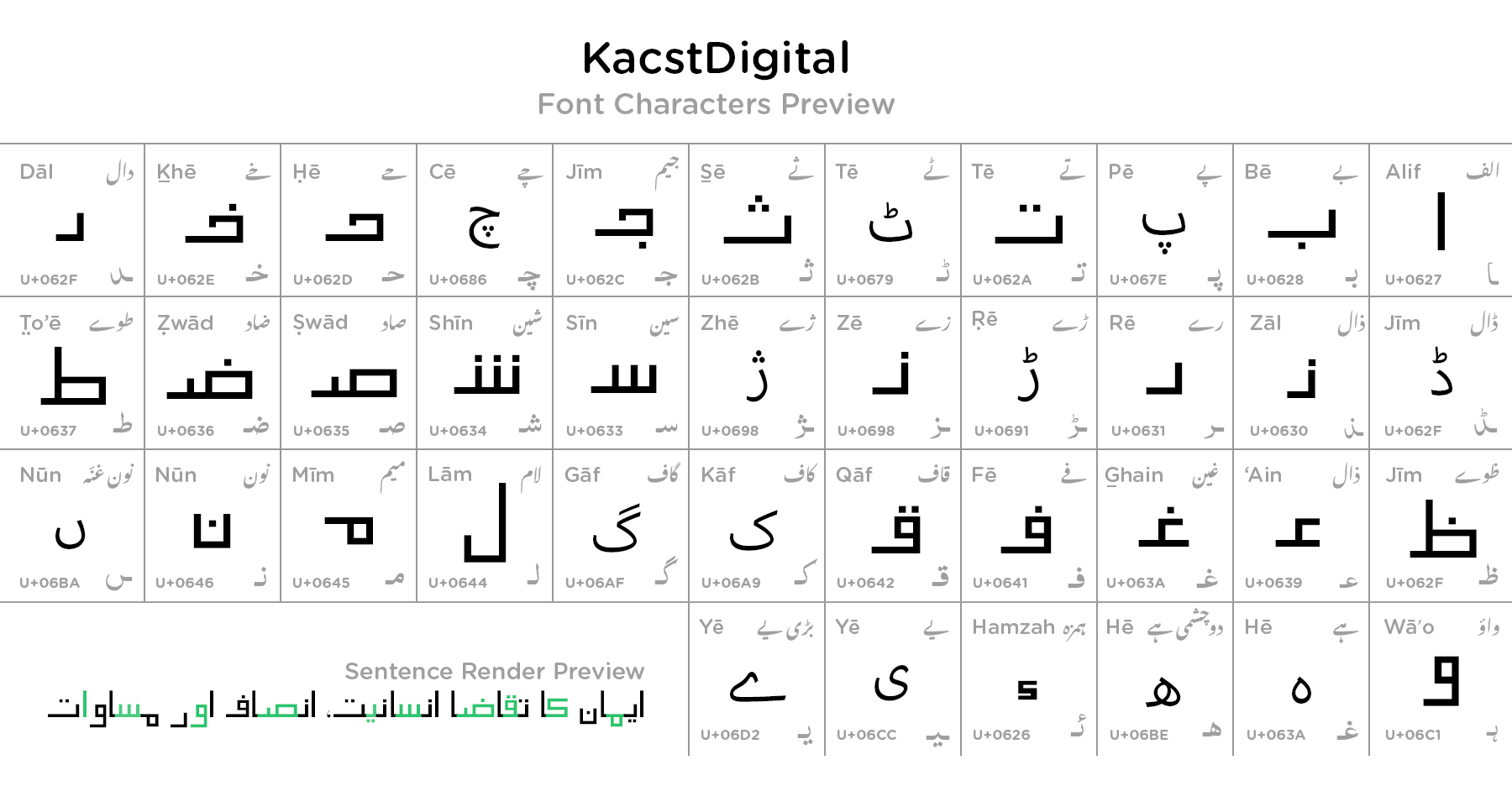
KacstDigital is a modern Arabic font developed by KACST (King Abdulaziz City for Science and Technology) and URW Design and Development and released under the GPL license. Its design draws inspiration from the Naskh and modern Kufic scripts, focusing on digital applications. With thin, wide, monospaced letters and square shapes, it embodies a tech font aesthetic, ideal for contemporary digital projects. Featuring constant thickness and sharp edges, KacstDigital delivers bold and impactful strokes, ensuring high legibility on screens, even at small sizes. The font offers a clean and clear look, with simple and spacious letters that enhance readability. Its geometric design lends a modern and minimalist feel to any text block, making it suitable for various design needs.
Released in 2017, the font offers 426 characters and 459 glyphs, ensuring compatibility with Arabic, Latin, Persian, and more languages. Its Unicode support covers many blocks, including Basic Latin, Arabic Presentation Forms, and Geometric Shapes. This versatility makes it suitable for social media posts, tech logos, branding, and other digital applications, catering to diverse design requirements. Whether used for short captions or lengthy paragraphs, it adapts seamlessly to different text blocks, offering clarity and sophistication to any design project. Its sleek and modern appearance, high legibility, and extensive language support make it a valuable for different kind of digital endeavors.